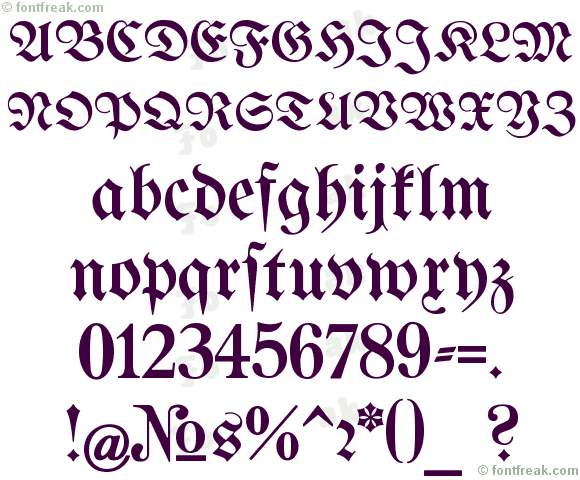
Bertholdr Mainzer Fraktur
About Bertholdr Mainzer Fraktur
The Bertholdr Mainzer Fraktur font, designed by Peter Wiegel, is a striking serif typeface that embodies the essence of traditional Germanic script. Renowned for its historical roots, this font captures the elegance of Fraktur lettering while maintaining a contemporary touch. It features bold stroke weights and a pronounced contrast between thick and thin lines, creating a visually engaging experience. The characters are intricately designed with decorative elements that include pointed serifs and unique ligatures, lending a distinctive flair to any text.
This font is particularly well-suited for a variety of applications. Its ornate style makes it an excellent choice for wedding invitations, where a touch of sophistication is desired. Additionally, it can enhance the visual appeal of movie posters, especially for films with historical or fantasy themes. Restaurant menus can benefit from the font's elegant aesthetic, providing a memorable dining experience for patrons. Furthermore, it can be used effectively in branding for small businesses aiming to evoke a sense of tradition and craftsmanship.
What truly sets the Bertholdr Mainzer Fraktur apart is its ability to combine historical significance with modern usability. This font not only pays homage to classic typography but also offers a fresh take that resonates with contemporary audiences. Its intricate details and bold presence ensure that any project using this font will stand out and make a lasting impression.